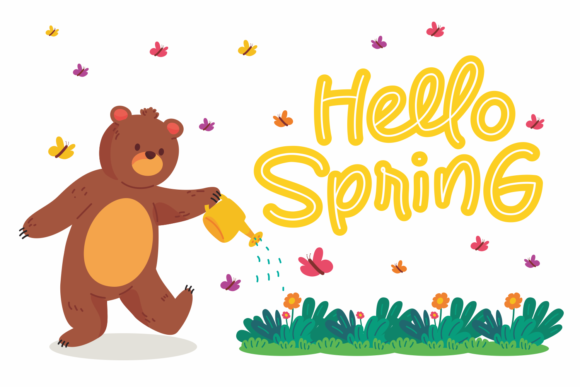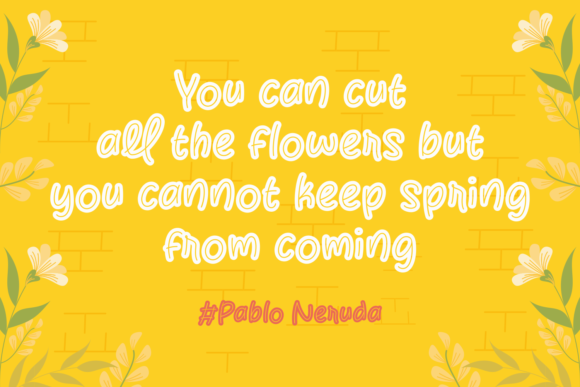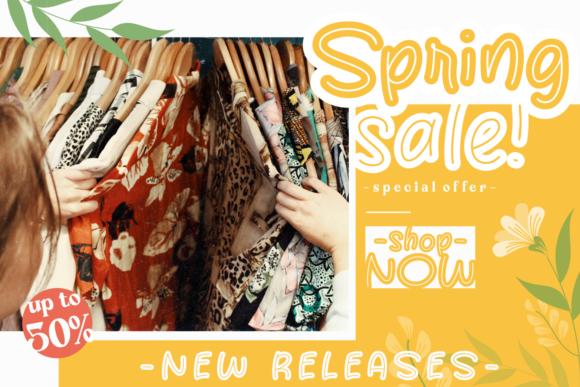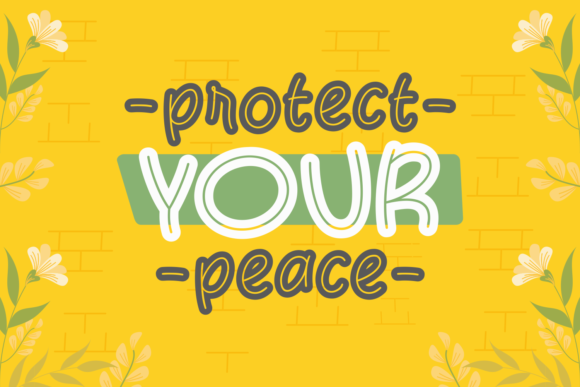
Introduction to Hello Jean Font
Remember that moment when you’re working on a creative project, and you’re stuck on finding the perfect font to make it stand out? You’ve spent hours browsing through design resources, trying to find the perfect combination of style and elegance. But, then you stumble upon a gem that makes everything fall into place. For many designers, this moment is exactly what they experience when they discover the Hello Jean Font.
This font is more than just a simple design element – it’s a game-changer. With its friendly and approachable feel, the Hello Jean Font can instantly elevate any project from ordinary to extraordinary. Whether you’re working on a digital design or a print project, this font is sure to make a lasting impression. And the best part? It’s available for a free download, so you can start using it right away.
- High-quality, professional font suitable for various creative projects, including graphic design and digital art.
- Designed with a clean and modern aesthetic, making it perfect for modern and minimalist design projects.
Honest Review: Hello Jean Font
As a designer, I’m always on the lookout for high-quality design resources that can elevate my creative projects. Hello Jean Font is a free download that caught my attention, and I’m excited to share my thoughts on it.
What works well: ✨ The font is incredibly versatile, with a modern and sleek design that’s perfect for a variety of projects, from branding to editorial design. The transparent background makes it easy to overlay on images or other design elements. The font is also highly legible, making it a great choice for body text or headings.
- High-quality design that’s perfect for modern projects
- Transparent background for easy overlaying
- Legible and easy to read
However, I do have a few limitations to mention: ⚠️ The font is only available in a limited range of weights, which might be a concern for designers who need more flexibility. Additionally, the font doesn’t come with a companion font family, which could be a drawback for some designers.
Overall, I’m impressed with Hello Jean Font. While it has some limitations, its high-quality design and versatility make it a great addition to any designer’s toolkit. With a little creativity, I think this font can be a game-changer for your next project.
Hello Jean Font
Hello Jean Font is a high-quality, free download design resource perfect for any creative project. This font features a transparent background, making it easy to use in various design applications.
Tips for Getting the Most Out of Hello Jean Font
For best results, use Hello Jean Font in conjunction with other high-quality design resources. Experiment with different font sizes, colors, and styles to create a unique look for your project.
Hello Jean Font is ideal for use in a variety of creative projects, including graphic design, digital art, and print design. It’s also a great choice for use in social media graphics, logos, and branding materials.